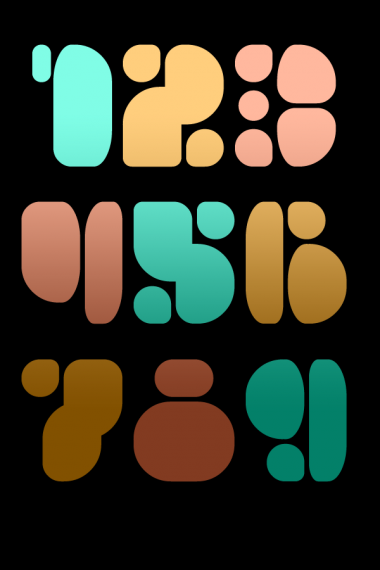
Cool!10/10+fav
This has the density of a permanent marker - well done.
Great! X may look too much like S though, and j may not need the dot at the bottom.
Thank you j4s13, p2pnut and Yautja, I have included alternatives for these characters.
Very original stencil typeface. I love how it looks easy in the making when of course I know it wasn't...
Chubby good :)
Cool samples and an excellent font!
Just yesterday, I came across a project on Behance that looks like your Permanent Black, check it out: https://www.behance.net/Gallery/BRAGGADOCIO-FAT-LOVE/109747
I even draw some sketches in my fontstructor, and as Elmoyenique usually says, yet another divergent thinking :)
I'm with the boys! 10/10.
Yes, even if with obviuous "four" signature, this can evoke the wonderful work of Jonathan Calugi which i love for years...
Thanks elmo! Thanks architaraz; will you develop it into a full font? And thanks AFT; it's a joy to explore Calugi's work!
Clever filter work. I really like the B, a, and x. Nice samples, too!
Congratulations! FontStruct Staff have deemed your FontStruction worthy of special mention. “Permanent Black” is now a Top Pick.
Like letter-shaped paw prints. V cool.